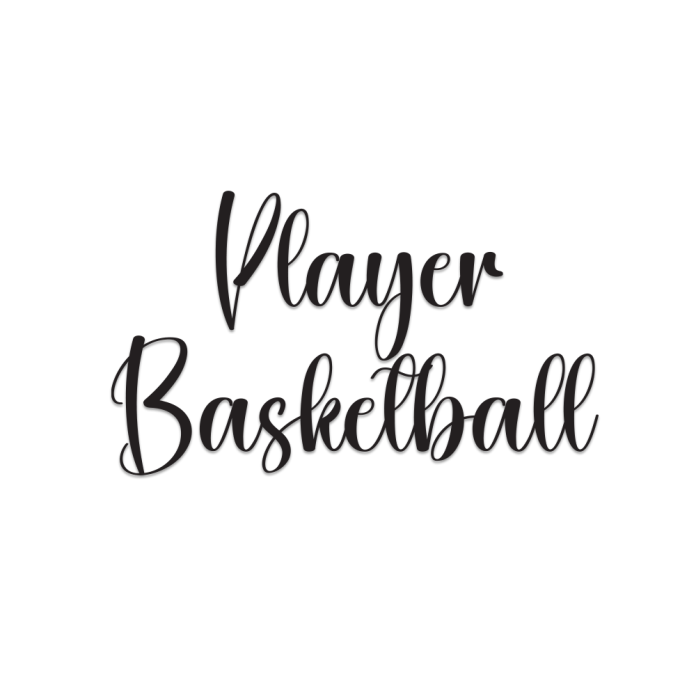
Player Basketball is a sporty and expressive handwriting font that brings the energy of the court into your designs. With its casual yet confident strokes, it mimics the look of a quick signature or playbook sketch.
Ideal for sports-themed posters, athletic branding, jersey mockups, or motivational quotes, Player Basketball adds a personal, active, and youthful feel to your projects.
Natural handwritten style with sporty flair
Bold and readable strokes
Uppercase, lowercase, numbers & punctuation
Perfect for branding, headlines, posters, and social content
Show off your team spirit and creativity with Player Basketball!